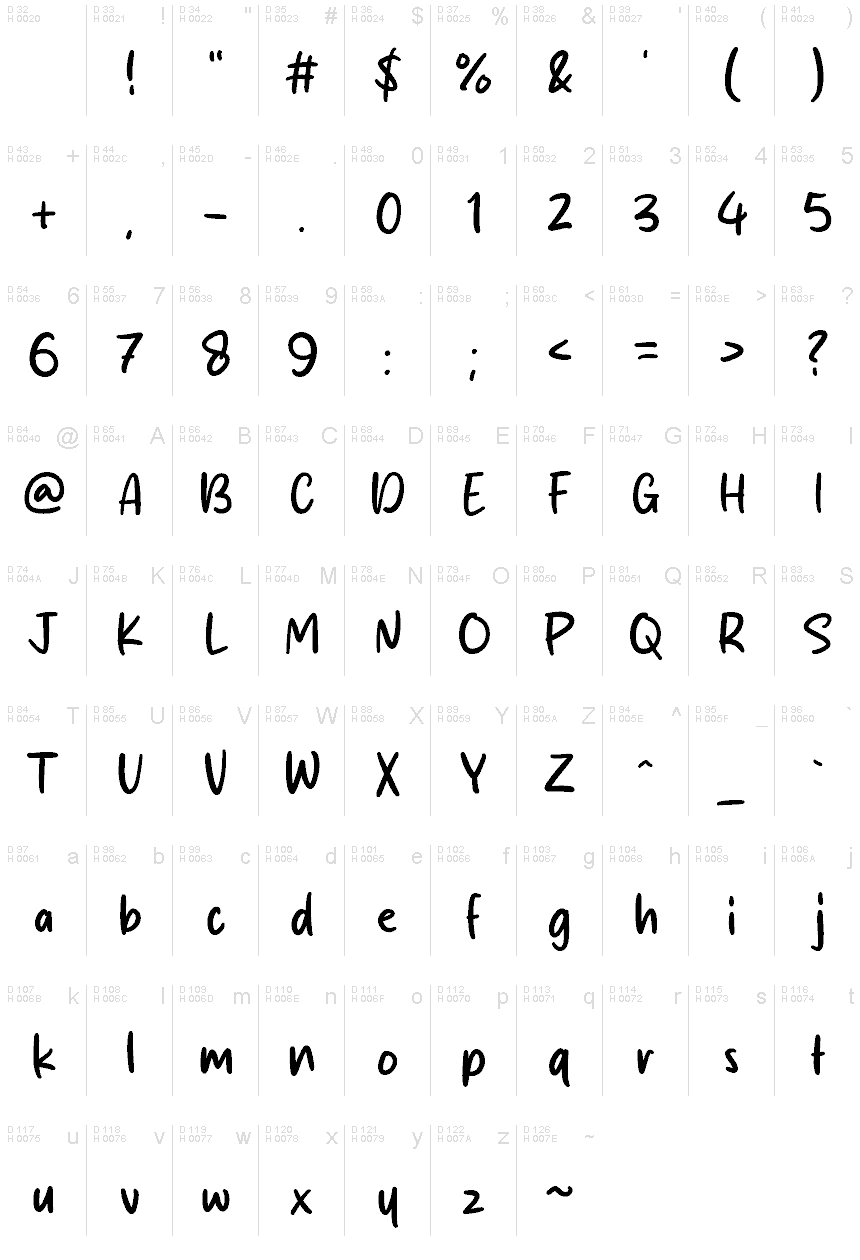
Pinky Apple
Pinky Apple font by MJType is a free handwritten font with a casual yet charming style. A hand-drawn feel, decorative elements, and unconventional letter shapes define an overall look that contains artistic flair and contemporary aesthetics. Charming, engaging, and playful are just some of the features this typeface provides through each individual glyph.